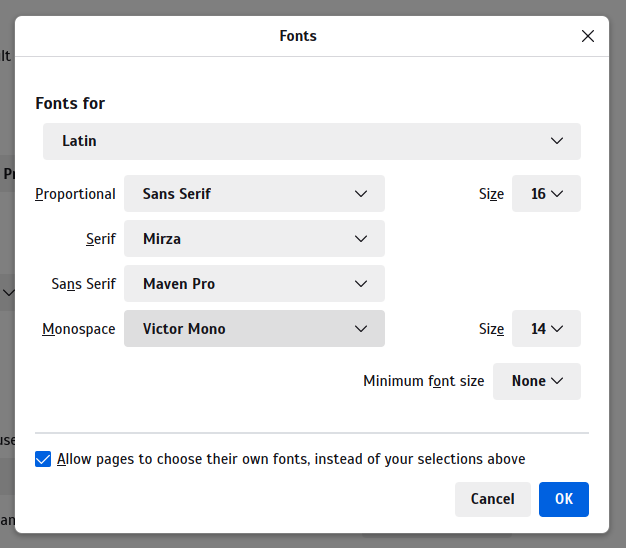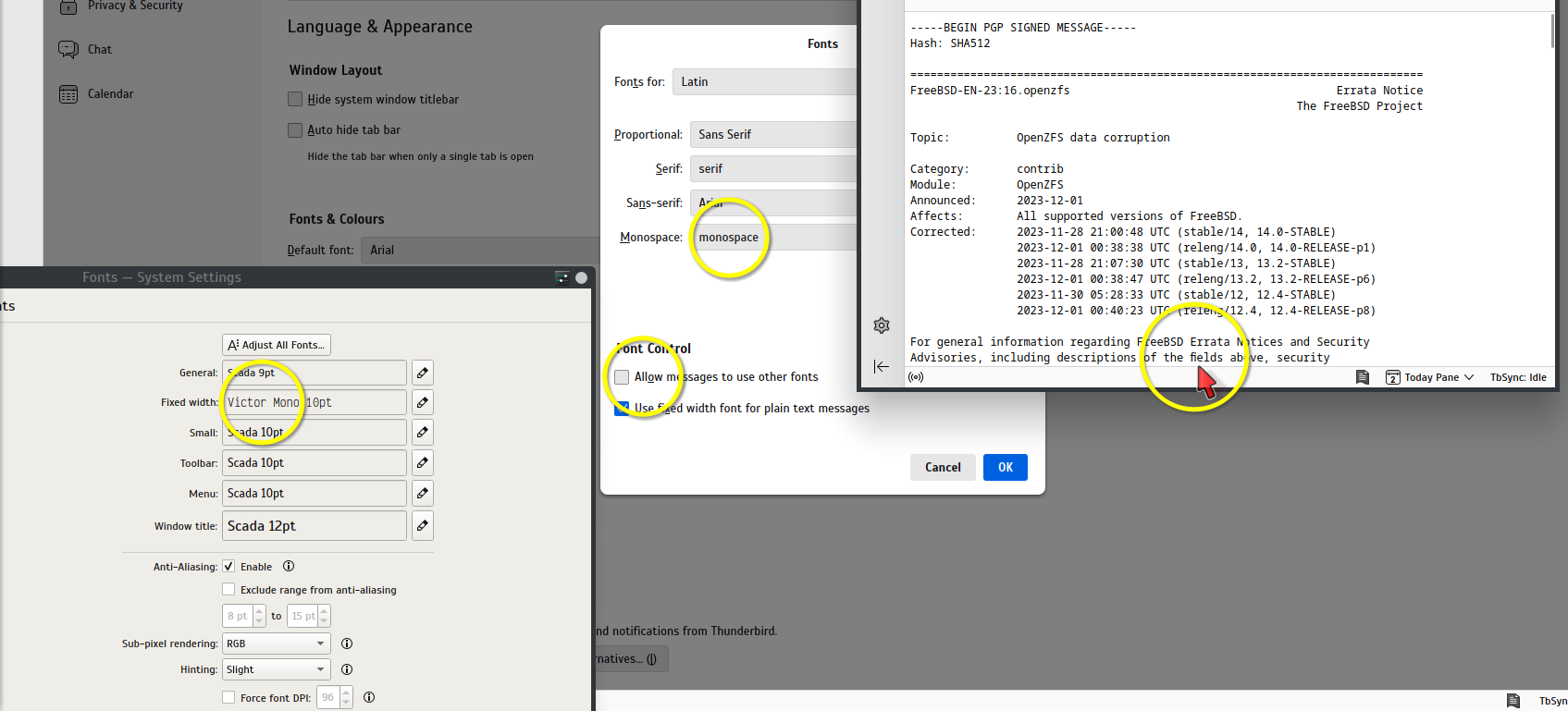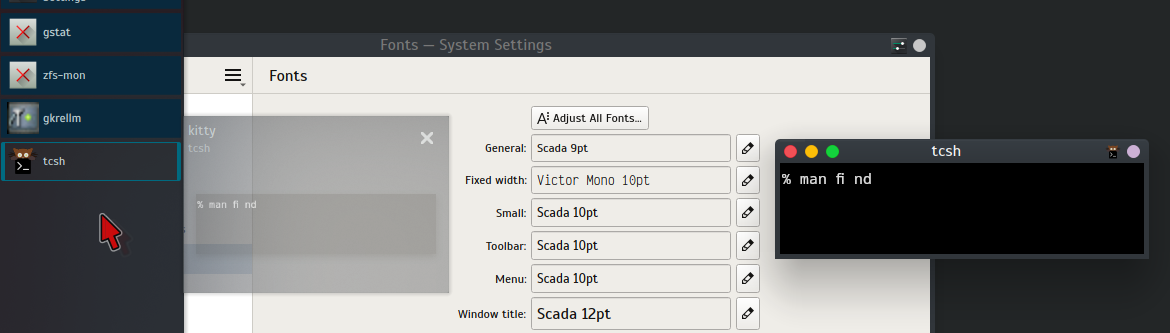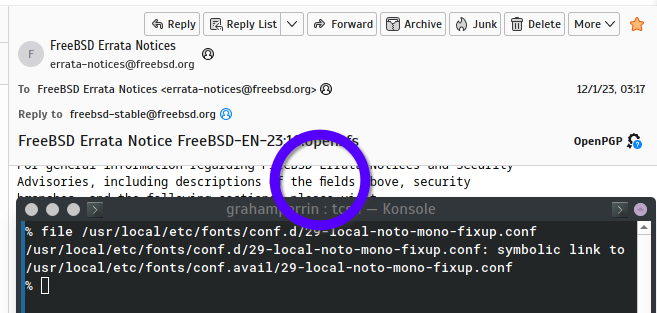
Solved terminal font messed up after updating packages for select characters
I updated my system on October 13 and my font is messed up for a few characters:
If I type ai or al, the problem doesn't occur, but for fi, or fl, it does.
It seems like a fixed-width font issue, but I'm not sure why or what would have changed just by updating my packages.
I am curious what is your font and your terminal ?
Having these details could encourage people with the same settings to join the discussion and help you.
I am unsure of the font, I don't believe I have any special settings anywhere for that. I am using kitty for my terminal.
On that note, if I use xfce4-terminal, there are no issues, it is just with kitty.
I am using kitty for my terminal.
Then check its config for font settings.
Yes, I checked that, I have only colors:
Removing the configuration altogether didn't make any difference in the font issue. It just changed the colors.
If you don't have a proper configuration file I am not sure of what you can expect from a highly configurable terminal like kitty.
Copy the one from the online doc into your kitty directory ~/.config/kitty/kitty.conf and start from there.
IIRC kitty development is active, you can expect some changes from time to time, just check the changelog if you are not sure of what happened, that's what I do when I am a bit lost with a software when it gets funky.
I see ligatures in the code blocks above - what makes no sense at all for monospace fonts. FreeBSD 13.2, Firefox here. But I won't investigate where they come from.
Accorrding to the x11/kitty website, the fonts "are derived automatically, by the OSes font system". kitty +list-fonts brings up a list and variants. The ligatures seem to be something from inside x11/kitty.
The combination indeed are ligatures -- one sign to combine two characters. Typing `f i` (without the space) you can see the two letters immediately flip together as fi (close together). In other terminal emulators this behaviour is not seen.
The other thing is that the `i` in the ligature is sans serif, whereas a sole `i` or in combinattion with another character makes a serif `i` with my Inconsolata (serif) terminal font.
The trailing space after the ligature indeed is a bit sloppy. The ligature takes two positions, but only uses one (that's the definition of a ligature). When you delete the space within the word, the `i` disappears and only the `f` stays.
x11-kitty_ligature_empty_space.png
Try with ligatures disabled, that should/could make a difference between fi and f i -- see the Kitty website or Arch manpage.
Further explanation of the use of ligatures in x11/kitty is here -- it's quite impressive, as long as ligature character codes don't mess things up! A one code ligature character may be interpreted different from a meant two separate character codes. Copying find <something> from kitty to shells/fish however gave no problems.
Using typographic features in a terminal emulator is something for debate.
disable_ligatures always
I tried that after I exited all my kitty windows and no dice.
I do think that is the right track and I also tried font_features -liga, but to no avail.
Yeah, as I said, I never knew the word ligature until this issue cropped up. It definitely isn't something I use everyday. As long as I can read the text quickly and easily without struggling, is my criteria.
No .conf file required.
I forgot, Victor Mono does use ligatures. kitty screenshot attached. <https://github.com/rubjo/victor-mono/issues/118> two years ago there was a one-off export without ligatures.
Now, I wonder why my Firefox preference for Victor Mono (pictured above) does not have the fi ligature in monospaced fi.
I checked with a clean (refreshed) Firefox profile. The ligature disappears immediately after I OK a change from monospace to Victor Mono.